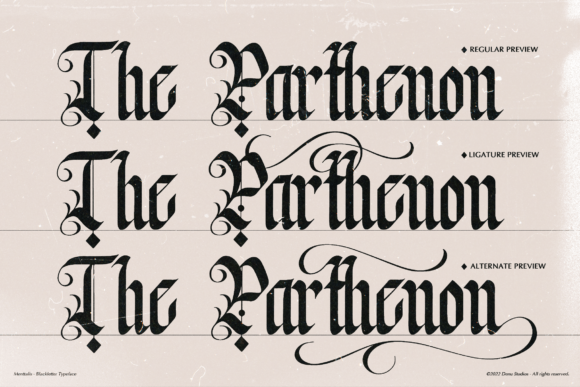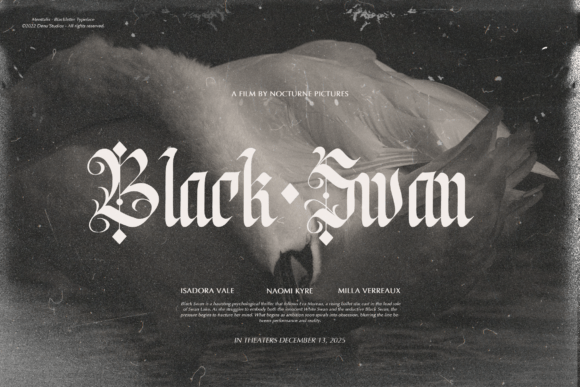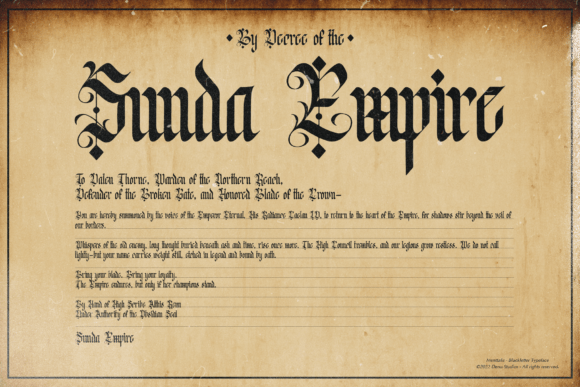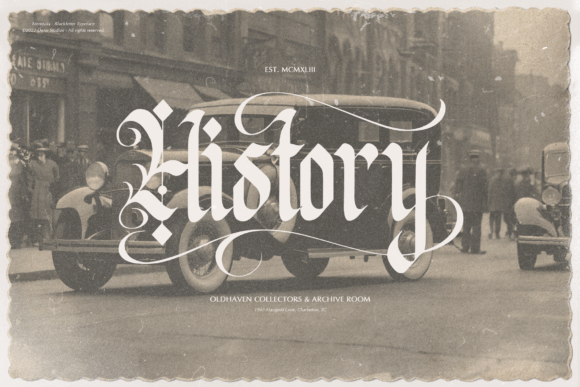
Menttalis Font
Menttalis is a striking blackletter typeface that blends classic medieval elegance with modern gothic flair. Featuring dramatic strokes, sharp terminals, and exquisite ornamental swashes, this font evokes a sense of grandeur and mystique. With over 290 glyphs, alternates, and ligatures, it’s perfect for vintage branding, gothic posters, tattoos, book covers, and high-impact editorial designs.